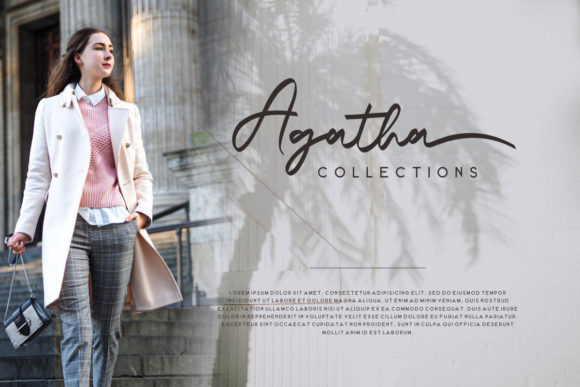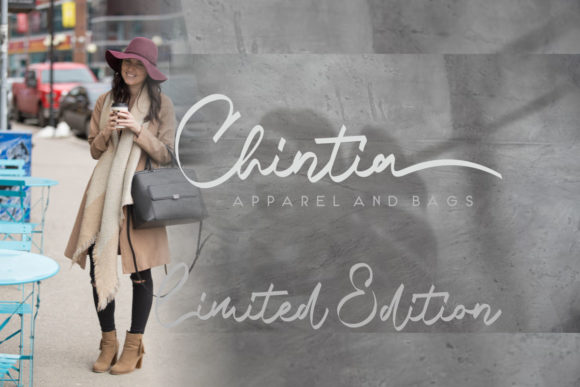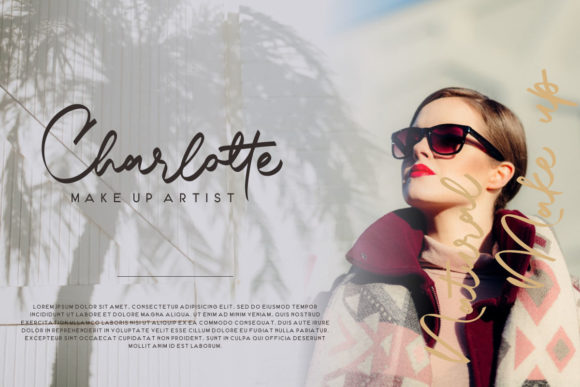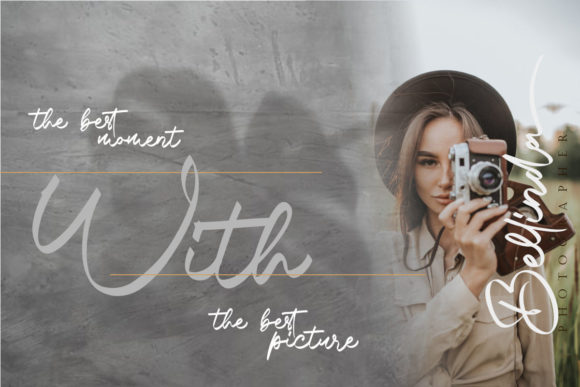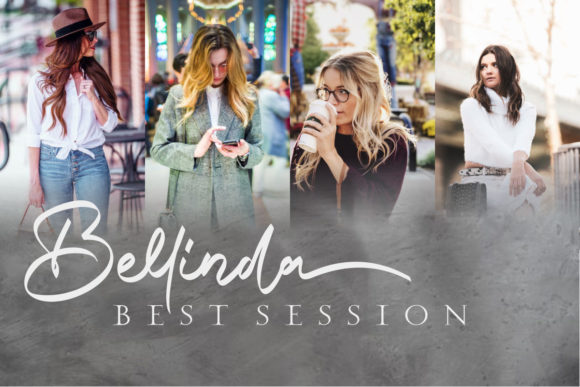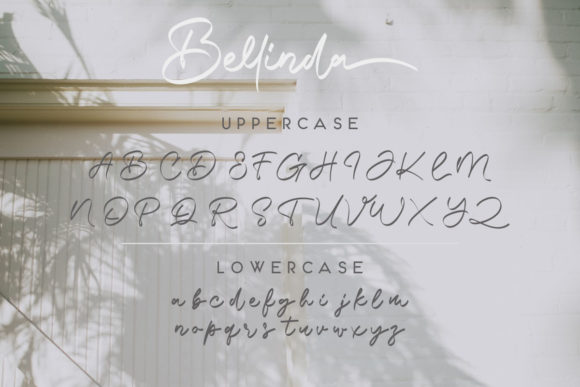
Discover the Elegance of Bellinda Font
Do you ever find yourself staring at a blank page, waiting for inspiration to strike? For designers, those moments can be the most thrilling – and the most daunting. But what if you could capture the essence of your vision in a single, swooping stroke of a pen? That’s exactly what the Bellinda Font offers, a beautifully crafted, refined, and modern script font that adds a touch of love to every product it touches.
Whether you’re creating branding materials, packaging designs, or even digital art, the Bellinda Font is the perfect companion for your creative journey. Its elegant curves and refined lines make it a valuable asset for designers seeking to elevate their work and leave a lasting impression. With the Bellinda Font, you’ll be able to infuse your products with a sense of sophistication and charm that’s sure to captivate your audience.
Bellinda Font Key Features
- Font Family: Bellinda Font
- Font Style: Script, Casual, Handwritten
- Unique Characteristics: Bellinda Font features elegant, cursive script with a touch of elegance and sophistication, making it perfect for creative projects, invitations, and titles.
Bellinda Font Review
I recently had the chance to work with the Bellinda font, and I must say it’s a lovely addition to any designer’s toolkit. Here are my thoughts on what works well and what doesn’t.
- Clean and Elegant Design: Bellinda’s clean lines and elegant design make it perfect for creating visually appealing documents, websites, and graphics.
- High Legibility: The font’s high legibility ensures that your text is easy to read, making it perfect for body text and headlines.
- Wide Character Support: Bellinda supports a wide range of characters, making it suitable for use in languages that require special characters.
- Lack of Distinctiveness: While Bellinda is a beautiful font, it lacks distinctiveness, making it hard to stand out in a crowded market.
- Not Ideal for Display Text: While it works well for body text, Bellinda’s design isn’t ideal for display text, such as headings or titles.
- No Extensive Weight Range: The font only comes in a limited weight range, making it less versatile for designers who need to create complex typography.
Overall, I think Bellinda is a solid choice for designers who need a clean and elegant font for body text. However, it may not be the best choice for designers who need a more distinctive font or require a wide range of weights.
Tips for Getting the Most Out of Bellinda Font
Some tips for using Bellinda Font effectively include:
– Use it for titles and headings to add a touch of elegance.
– Pair it with a sans-serif font for body text to create a clear and readable design.
– Experiment with different font sizes and colors to create visual interest.
Bellinda Font is commonly used for:
– Fashion and beauty branding
– Luxury product packaging
– High-end website design
Alternatives to Bellinda Font for Designers
The Great Vibes Font is a modern, elegant script font that is perfect for creating a sophisticated and luxurious feel in designs. It is ideal for use in branding, advertising, and editorial content where a high-end, sophisticated look is desired. Compared to Bellinda Font, Great Vibes Font has a more refined and polished look, making it suitable for use in high-end designs.
The Pacifico Font is a beautiful, handwritten font that is perfect for creating a relaxed and casual feel in designs. It is ideal for use in branding, advertising, and editorial content where a friendly and approachable look is desired. Compared to Bellinda Font, Pacifico Font has a more laid-back and casual vibe, making it suitable for use in designs that require a relaxed tone.
The Dancing Script Font is a beautiful, elegant script font that is perfect for creating a playful and whimsical feel in designs. It is ideal for use in branding, advertising, and editorial content where a fun and creative look is desired. Compared to Bellinda Font, Dancing Script Font has a more playful and energetic vibe, making it suitable for use in designs that require a creative and fun tone.